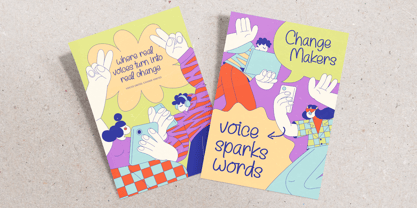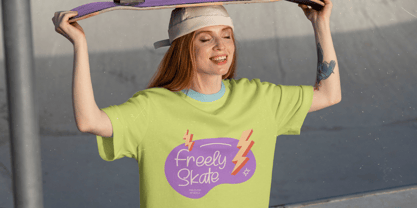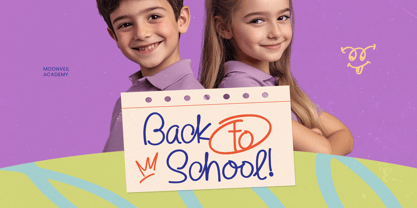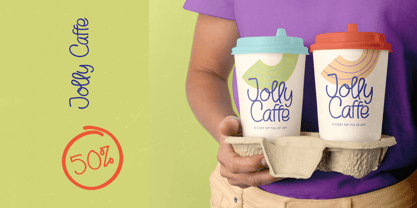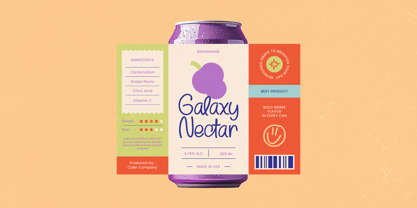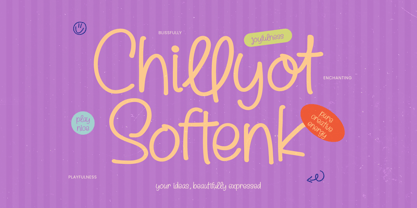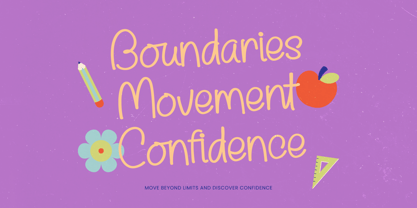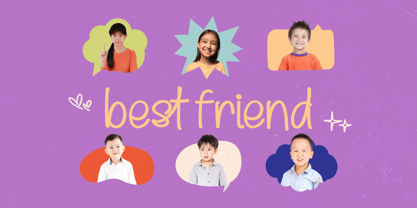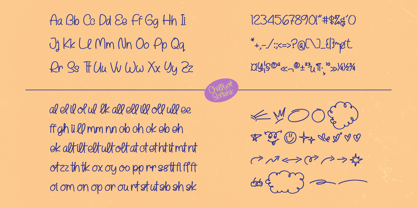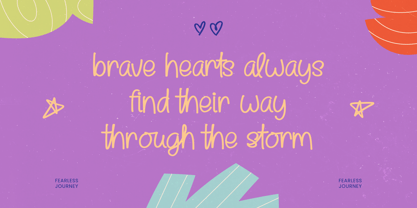
Chillyot Softenk
The Chillyot Softenk Font Family was designed by Heru Utama Putra and published by Stylishtype Studio. Chillyot Softenk contains 2 styles and family package options. More about this family
Chillyot Softenk - Cute Handwritten Font adapts seamlessly across global markets, making it incredibly versatile for international projects. This cross-cultural adaptability ensures your message remains consistent and charming, regardless of the language, providing a cohesive brand identity on a worldwide scale.
Discover the perfect solution for lifestyle branding, creative packaging, and editorial design with this versatile script font. It is perfect for boutique shop identities, greeting cards, children’s book covers, and social media banners where a friendly, approachable vibe is paramount. By choosing Chillyot Softenk - Cute Handwritten Font, you invest in a high-quality design asset that effortlessly bridges the gap between playful creativity and commercial sophistication.